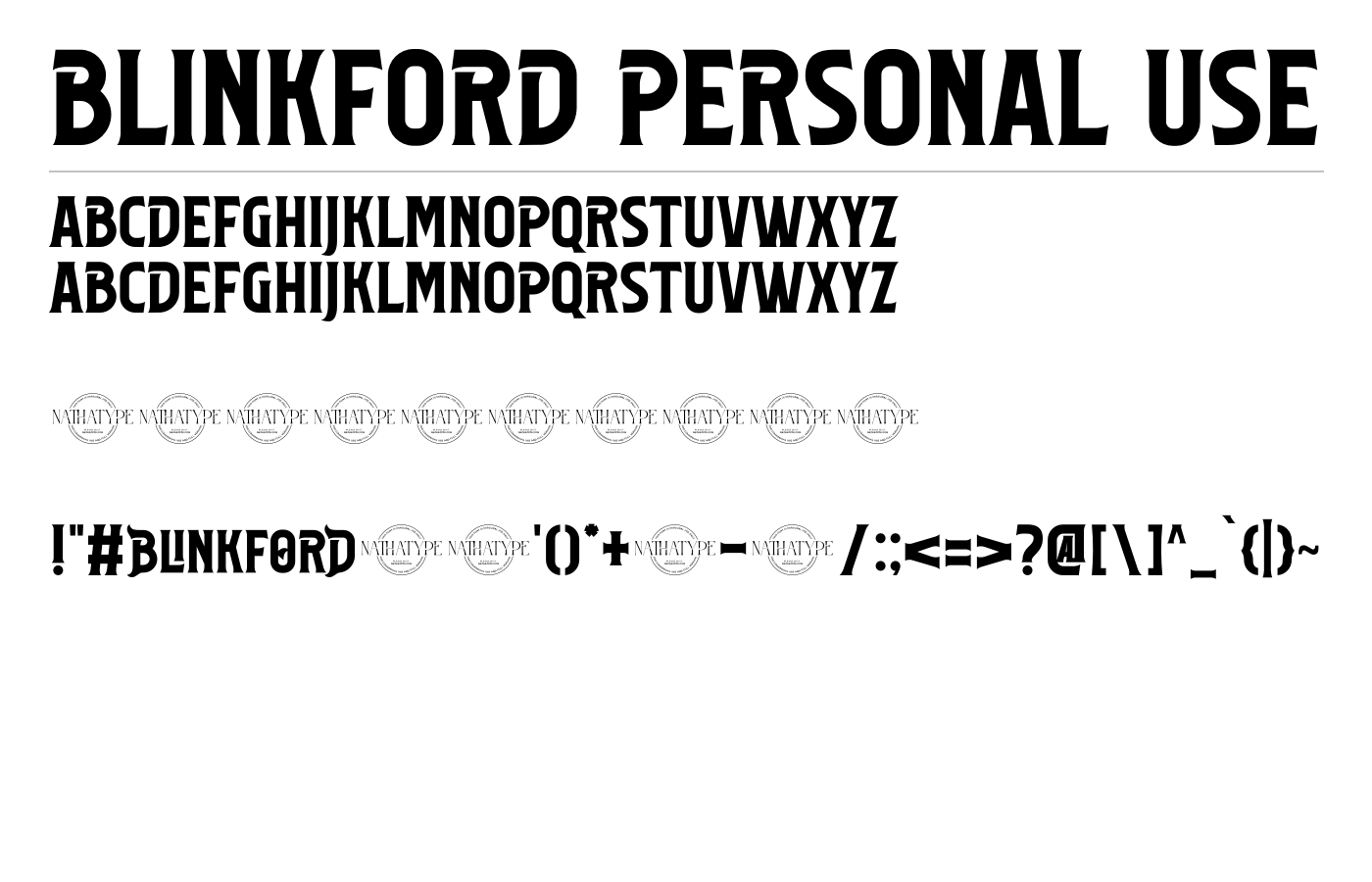
Blinkford Personal Use is a bold, condensed serif font with a strong vintage vibe, featuring thick and thin stroke contrasts that give it a dramatic and striking appearance. Its tall, narrow letterforms with sharp, bracketed serifs make it ideal for creating impactful headlines or branding that demands attention, especially in retro-inspired or adventurous design contexts. This font works great for posters, logos, and packaging where a bold, distinctive, and slightly nostalgic style is desired.
Blinkford Personal Use Font
About Blinkford Personal Use Font
| Font family | Blinkford Personal Use Font |